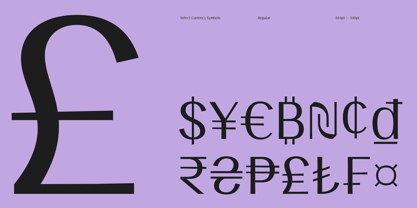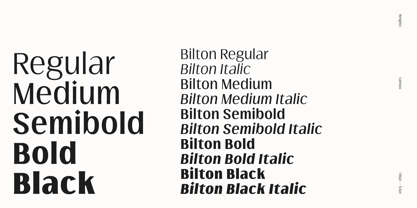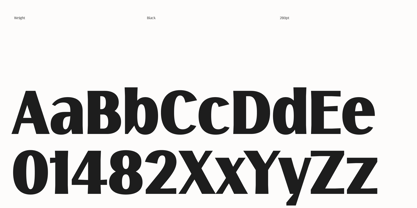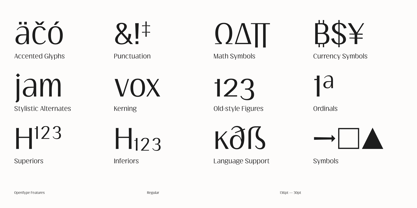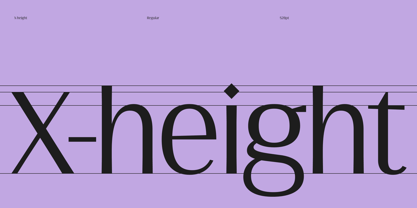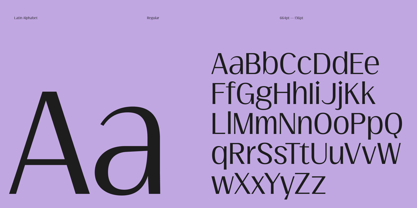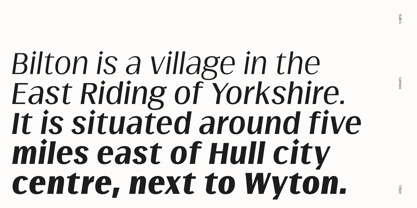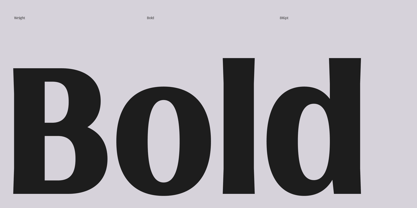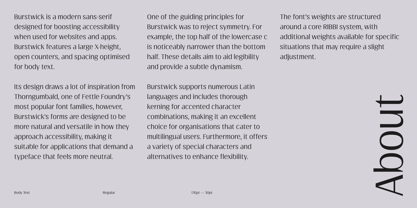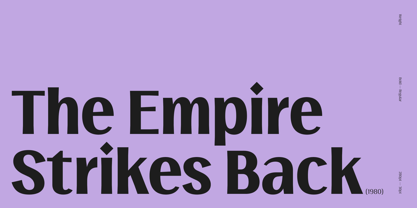
Bilton
by Fettle Foundry
The Bilton Font Family was designed by Thom Milson and published by Fettle Foundry. Bilton contains 10 styles and family package options. More about this family
Bilton is a sans-serif typeface with the personality of serif and an incredibly large X-height. Intended for headlines and display sizes, Hutton can also be used at body sizes if needed.
High contrast, sharp angles, and subtle serif-like flares are used throughout the design, making Bilton feel playful yet classy.
Featuring ten styles – five roman and five matching italics – Bilton is suitable for a wide range of uses.
The family supports more than 300 latin-based languages, and features contextual alternatives for character combinations and languages.
Designers: Thom Milson
Foundry: Fettle Foundry